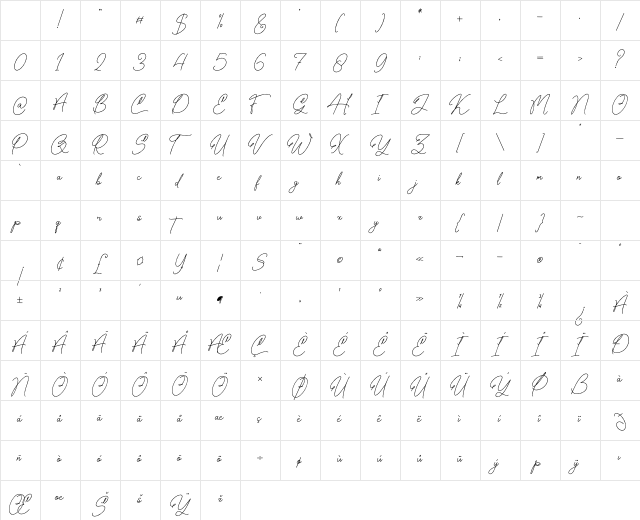
Complete Chettalbury Regular glyph index. Displaying only characters natively supported by Chettalbury Regular font.
Chettalbury is a composed and adaptable typeface that performs quietly and consistently across a wide range of design contexts.